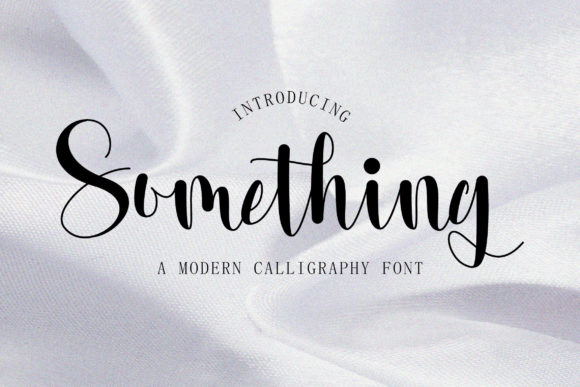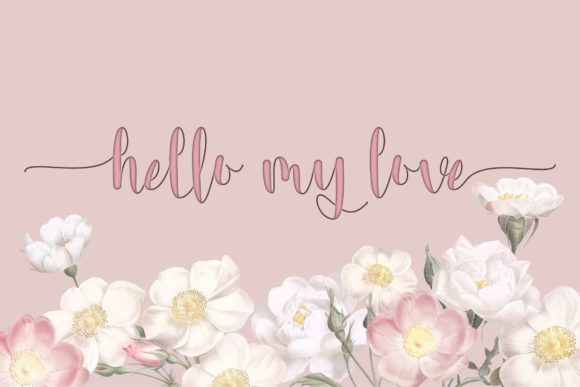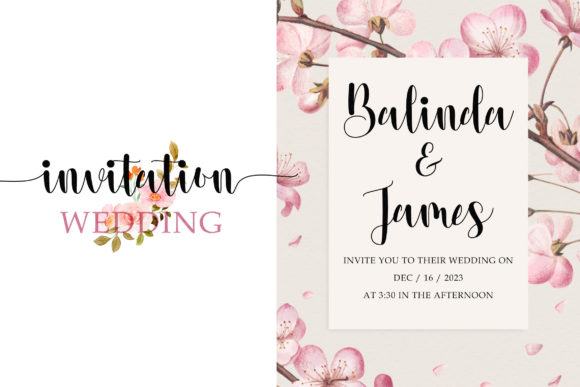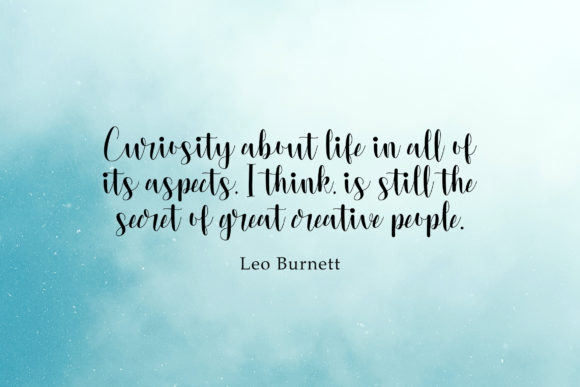
About Something Font
Something is a beautiful and light handwritten font with a unique feel and a stunning impact. It will add a luxury spark to any design project that you wish to create! This font is PUA encoded which means you can access all of the amazing glyphs and ligatures with ease!